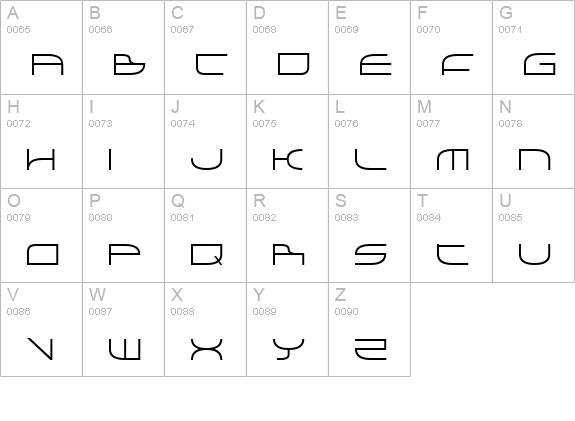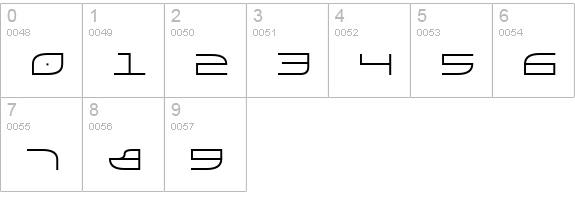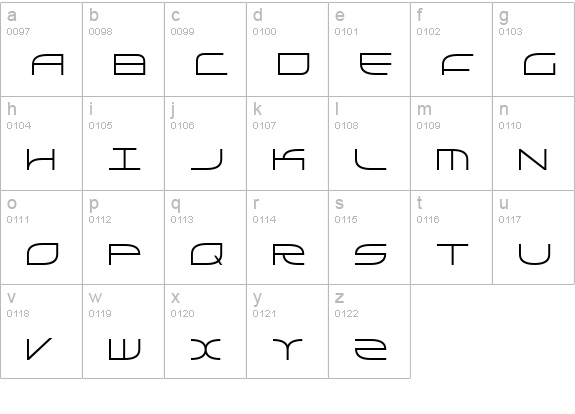
Discover the elegant and versatile Galga font, a modern typeface that exudes sophistication and style. With its clean lines and unique design, Galga is perfect for a wide range of projects, from branding to editorial design. This striking font is available for free download at FontsMarket.com, making it easily accessible for all designers looking to add a touch of sophistication to their work. Whether you're creating a sleek logo or designing a sleek website, Galga is sure to make a statement with its timeless appeal. Download Galga today and elevate your designs to new heights.